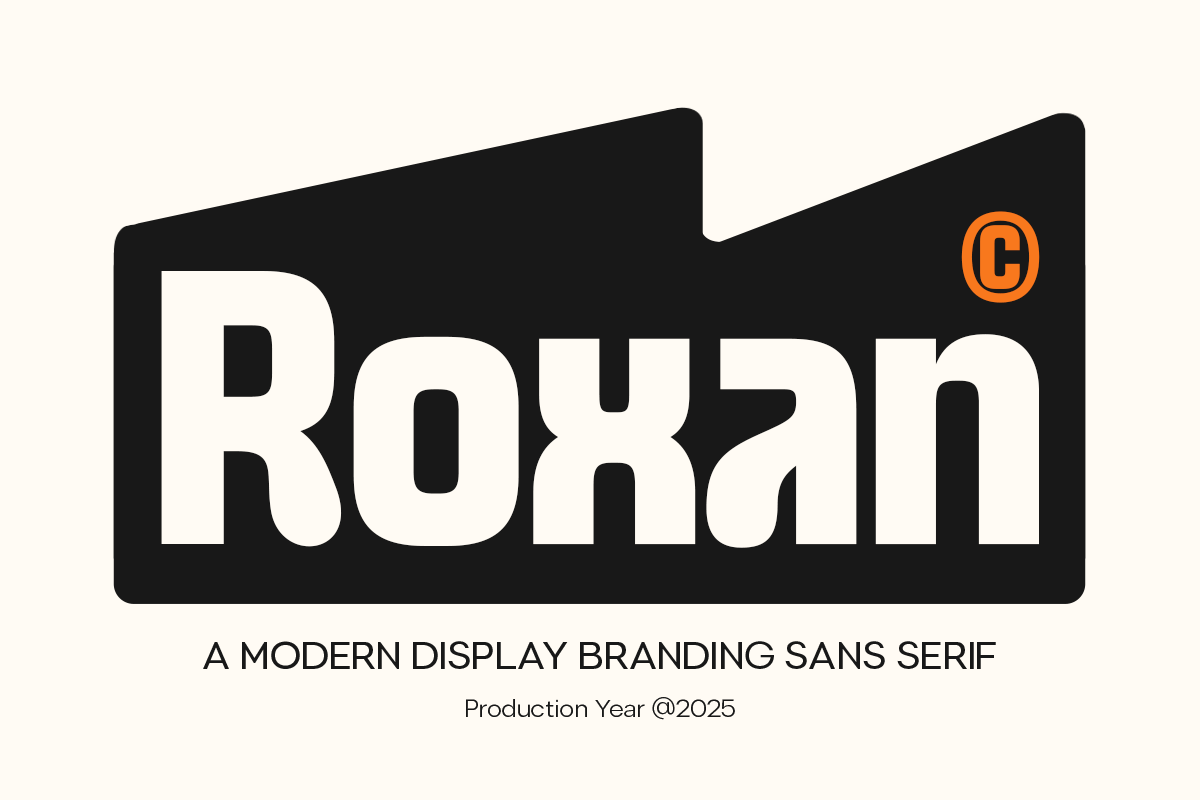
Roxan
-Modern Logo Branding Sans Serif FontRoxan - Modern Logo Branding Sans Serif Font
Roxan is a modern display sans serif font crafted for professional branding and creative projects. Ideal for logos, posters, social media, packaging, and digital products, it offers clean lines, contemporary style, and a bold presence.
With versatile and legible letterforms, Roxan brings a polished and modern aesthetic to any visual identity, ensuring your designs stand out in both print and digital applications.
Roxan – Modern Display Branding Sans Serif Features
Clean and modern sans serif character set
Perfect for branding, logos, and display designs
OpenType features for extra versatility
Elevate your branding projects with Roxan – a bold, modern, and versatile display sans serif font. ✨